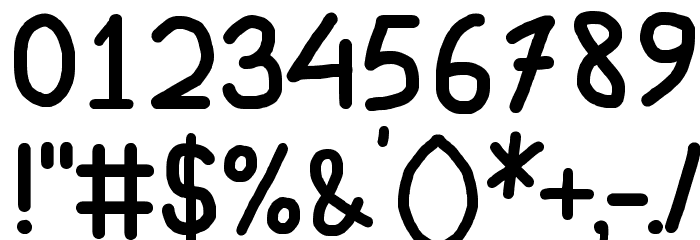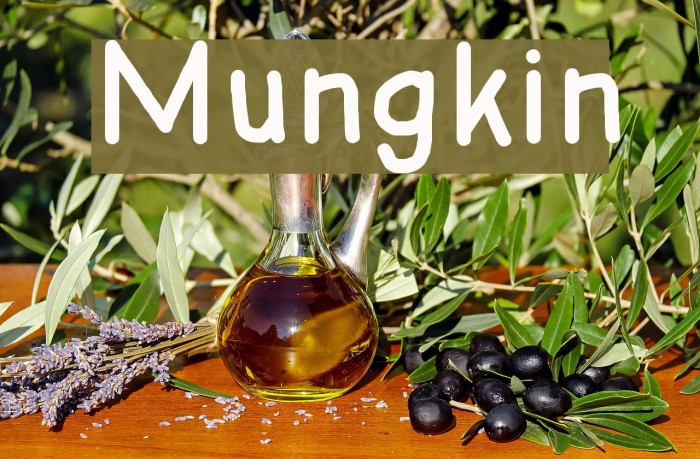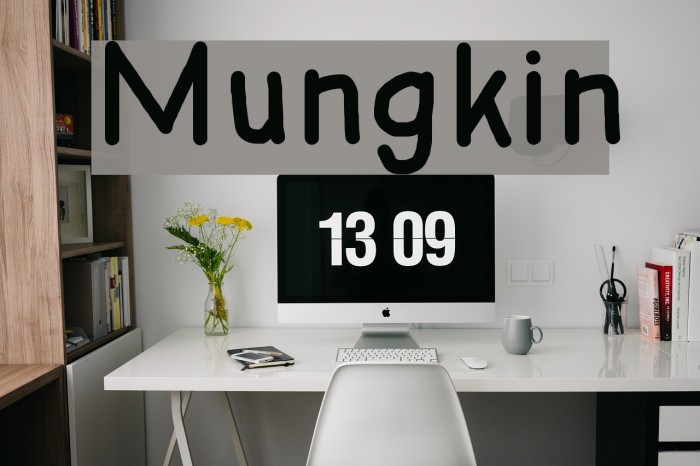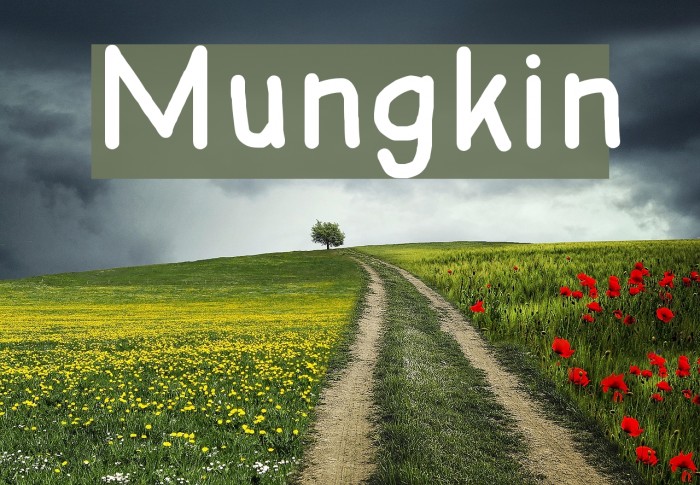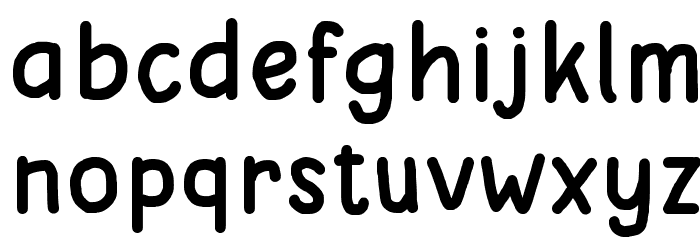
Mungkin Font
Mungkin Description
This font features a playful and rounded design, characterized by its smooth curves and consistent stroke width. The letters are evenly spaced, providing a clean and approachable appearance. The uppercase and lowercase letters maintain a uniform style, with slightly exaggerated curves that add a whimsical touch. The numerals and special characters follow the same rounded aesthetic, ensuring a cohesive look across all text elements. This font is highly legible, making it suitable for both digital and print media. Its friendly and informal style makes it ideal for projects that aim to convey warmth and approachability.
A playful, rounded font with smooth curves and consistent stroke width from Uncategorized fonts.
- Proposed Projects: Ideal for children's books, casual branding, greeting cards, and playful web design.
- Overall Style: Playful
- Use Case: Headlines, Logos, Informal Text